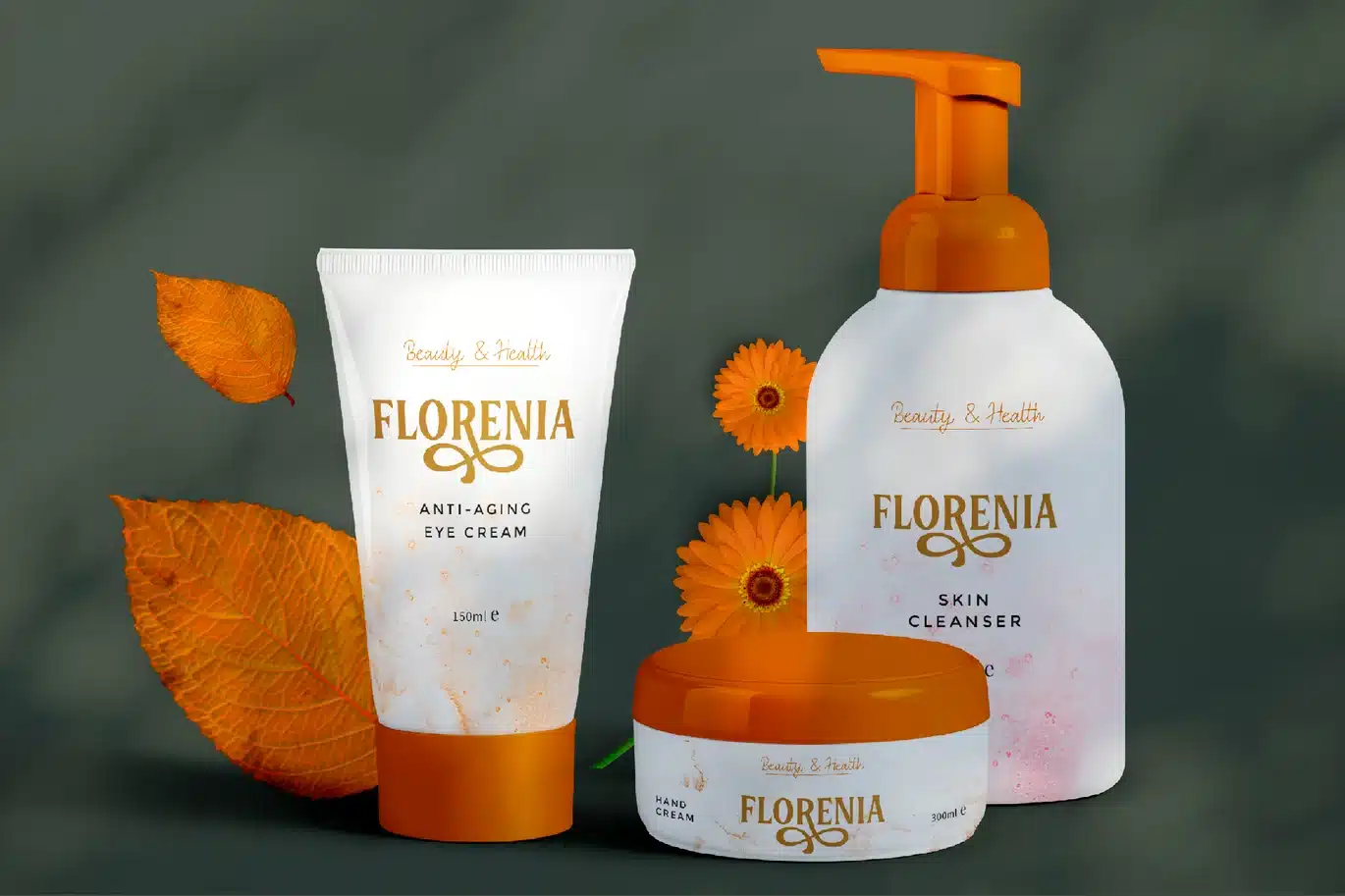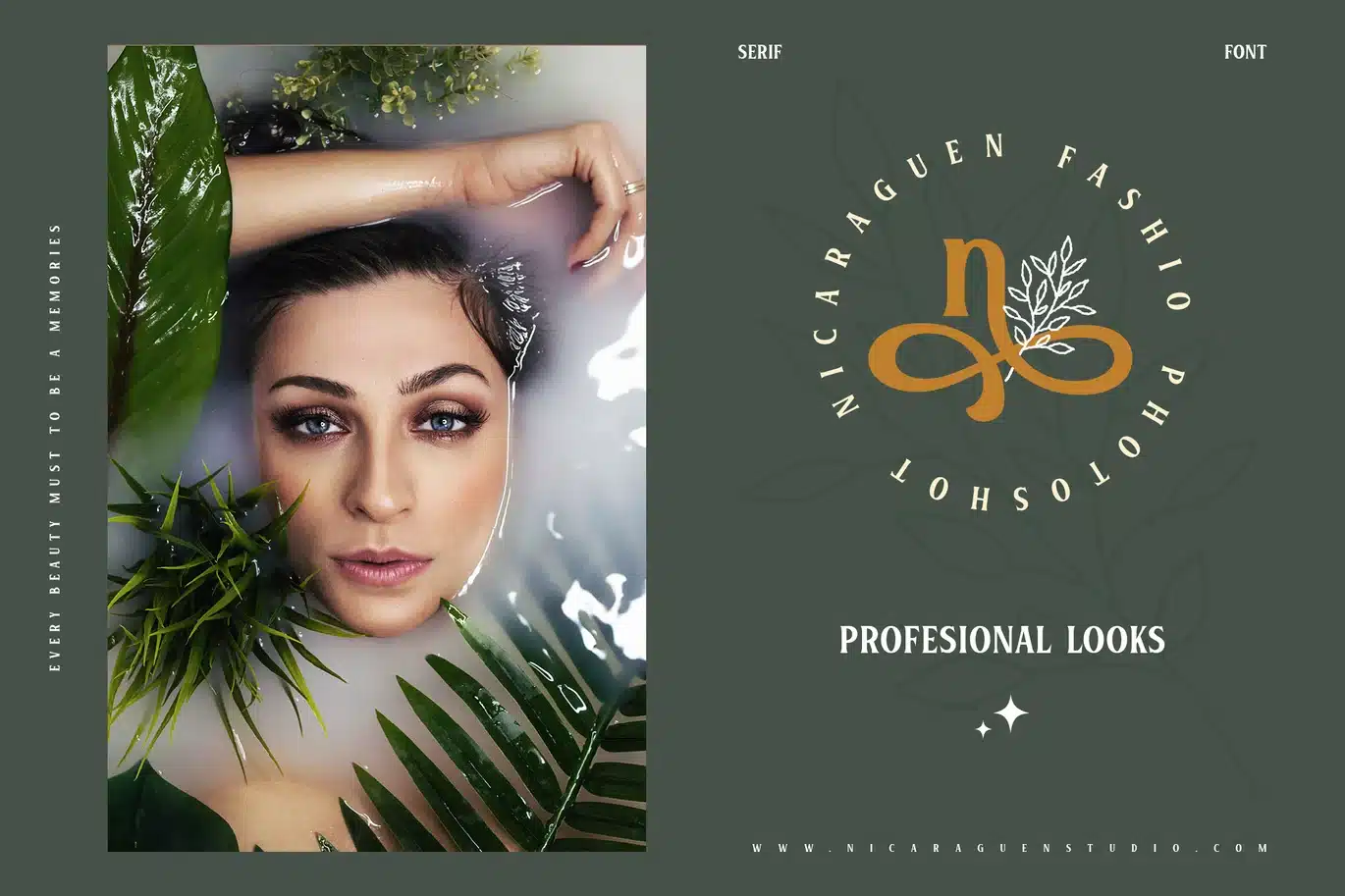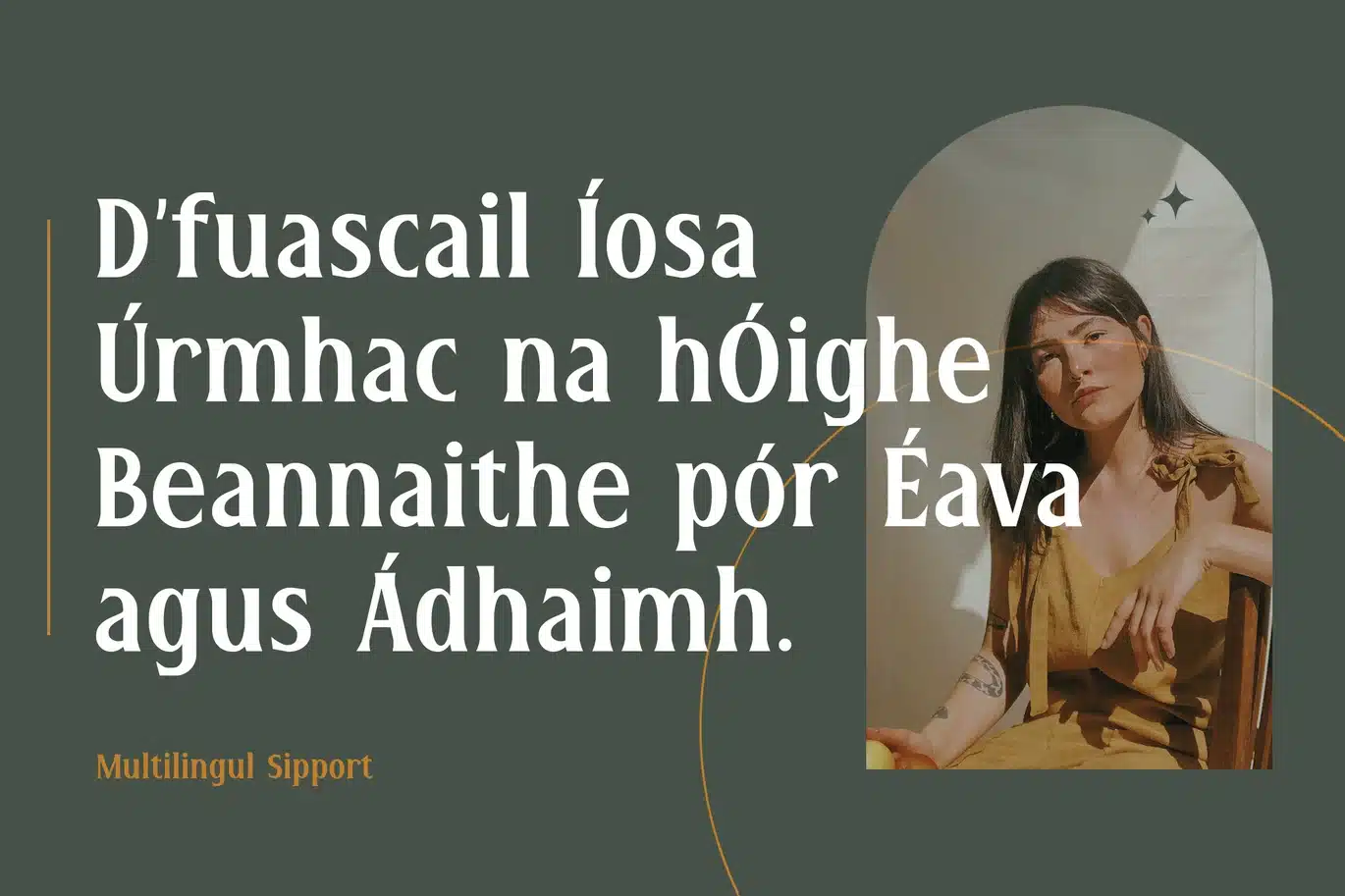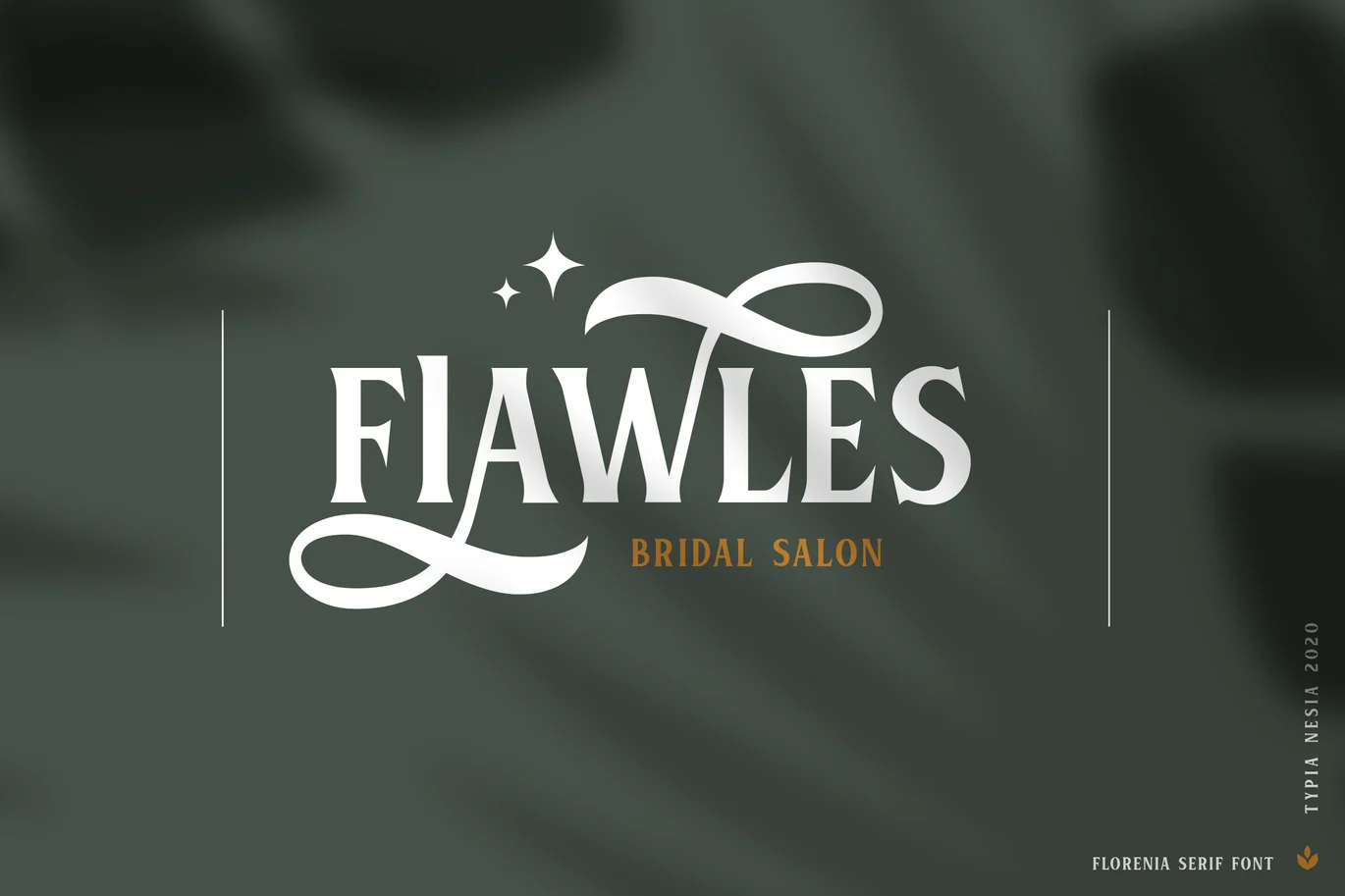
Florenia Beautiful Display - Elegant Luxury serif font
Florenia Serif font is perfect for your up coming projects. Such as luxury logo and branding, classy editorial design, magazine, fashion promotional, boutique branding, stationery design, blog design, modern advertising design, card invitation, art quote, home decor, book/cover title, special events and any more.